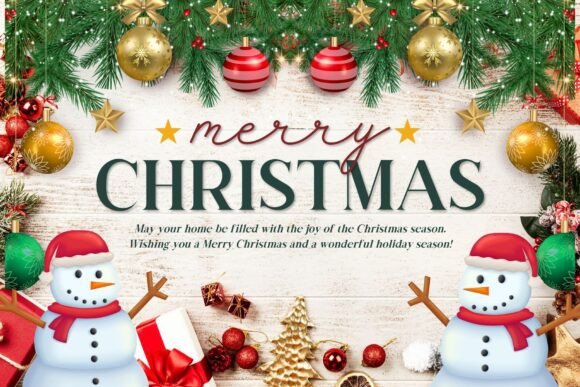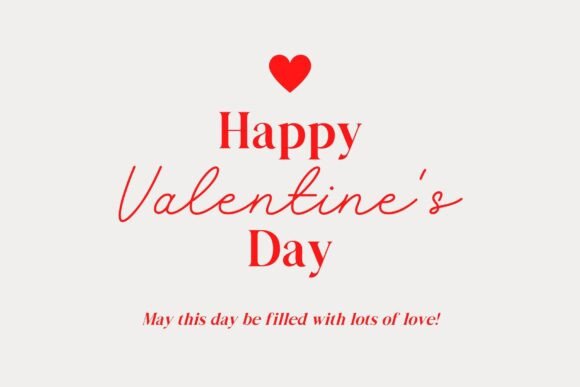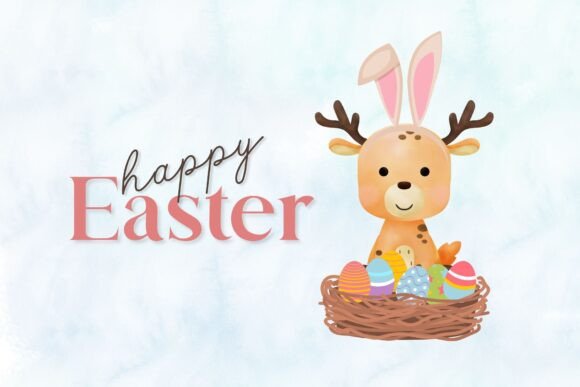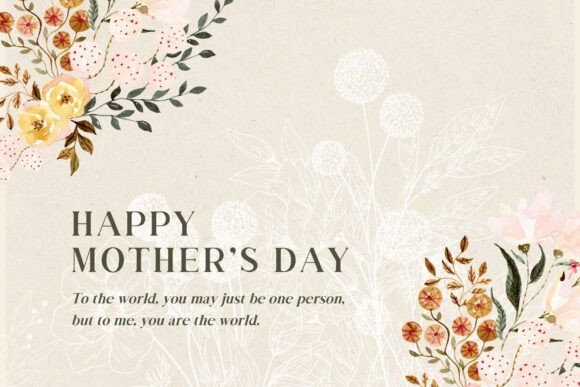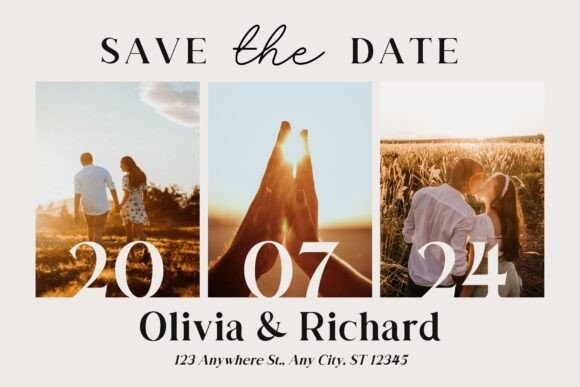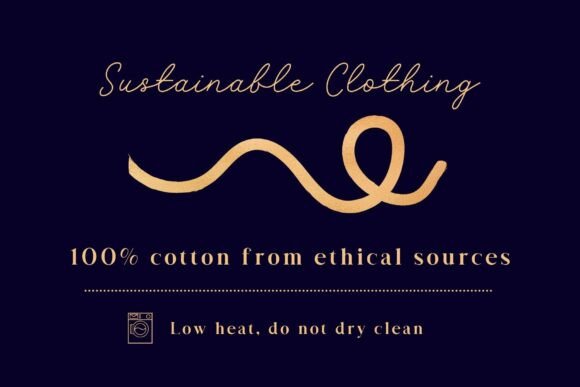
✨ Elevate Your Designs with the Fox Aurelia Font Trio ✨
Have you ever been stuck on a design project, searching for that perfect font to bring your vision to life? You’re not alone. I’ve been there too, scrolling through countless typefaces, trying to find the one that captures the essence of my idea. And then, it happens – you stumble upon a font that takes your breath away, and everything falls into place. For me, that font was Fox Aurelia, the elegant serif font that exudes timeless luxury and sophistication.
As a designer, you’re constantly on the lookout for tools that can help you create stunning designs. That’s why the Fox Aurelia Font Trio is a game-changer. This trio, consisting of Fox Aurelia, Fox Aurelia Slant, and Fox Radiant, offers a harmonious blend of structure and flow, perfect for high-end, romantic, and minimalist design projects. Whether you’re working on a branding project, creating wedding stationery, or designing editorial layouts, Fox Aurelia (slant) & Fox Radiant Font has got you covered.
With Fox Aurelia (slant) & Fox Radiant Font, you can add a touch of elegance and sophistication to your designs, making them truly unforgettable. Its versatility, combined with its classic and luxurious feel, makes it a valuable addition to any designer’s toolkit.
Fox Aurelia (slant) & Fox Radiant Font Key Features
- Font Family: Fox Aurelia (slant) & Fox Radiant Font
- Unique Characteristics:
- Hand-drawn design with a modern twist
- Unique slanted style in Fox Aurelia
- Elegant and sophisticated feel in Fox Radiant
- Character Set: Latin, Cyrillic, Greek
Designer Review: Fox Aurelia (Slant) & Fox Radiant Font
As a designer, I was excited to dive into the Fox Aurelia (Slant) & Fox Radiant font duo. ✨ Here are my honest thoughts:
- The fonts’ unique slanted design makes them stand out in any design project.
- The Fox Radiant font is perfect for headings and titles, as it adds a touch of elegance and sophistication.
- The font pairing is well-suited for modern and trendy designs, making it an excellent choice for creative projects.
However, I did encounter some limitations with the fonts:
- The fonts may not be suitable for body text, as the slanted design can be difficult to read in large quantities.
- The Fox Aurelia (Slant) font can be a bit too bold at times, overpowering the other design elements.
- The font pairing may not be the best choice for traditional or conservative designs.
Overall, I’m impressed with the Fox Aurelia (Slant) & Fox Radiant font duo. While they have some limitations, they are perfect for modern and trendy designs where a unique and elegant touch is needed.
Practical Application Guide: Fox Aurelia (Slant) & Fox Radiant Font
Tips for Getting the Most Out of Fox Aurelia (Slant) & Fox Radiant Font
1. Use Fox Aurelia (Slant) for titles and headings to add a touch of elegance.
2. Use Fox Radiant for body text to create a clean and modern look.
3. Experiment with different font sizes and colors to create visual hierarchy and emphasis.
1. Branding and identity design.
2. Digital marketing materials, such as social media graphics and email campaigns.
3. Print design, such as business cards and brochures.
Alternatives to Fox Aurelia (slant) & Fox Radiant Font
Great Vibes is a modern, elegant script font that is perfect for creating a unique and eye-catching design. It is ideal for use in headings, titles, and other text elements where a touch of sophistication is desired. Great Vibes is similar to Fox Aurelia (slant) in its flowing, cursive style, but has a more refined and polished appearance.
Carolyna Pro is a high-end, luxurious script font that is perfect for creating a premium and high-end design. It is ideal for use in branding, packaging, and other applications where a touch of elegance and sophistication is desired. Carolyna Pro has a similar flowing and cursive style to Fox Aurelia (slant), but with a more dramatic and refined appearance.